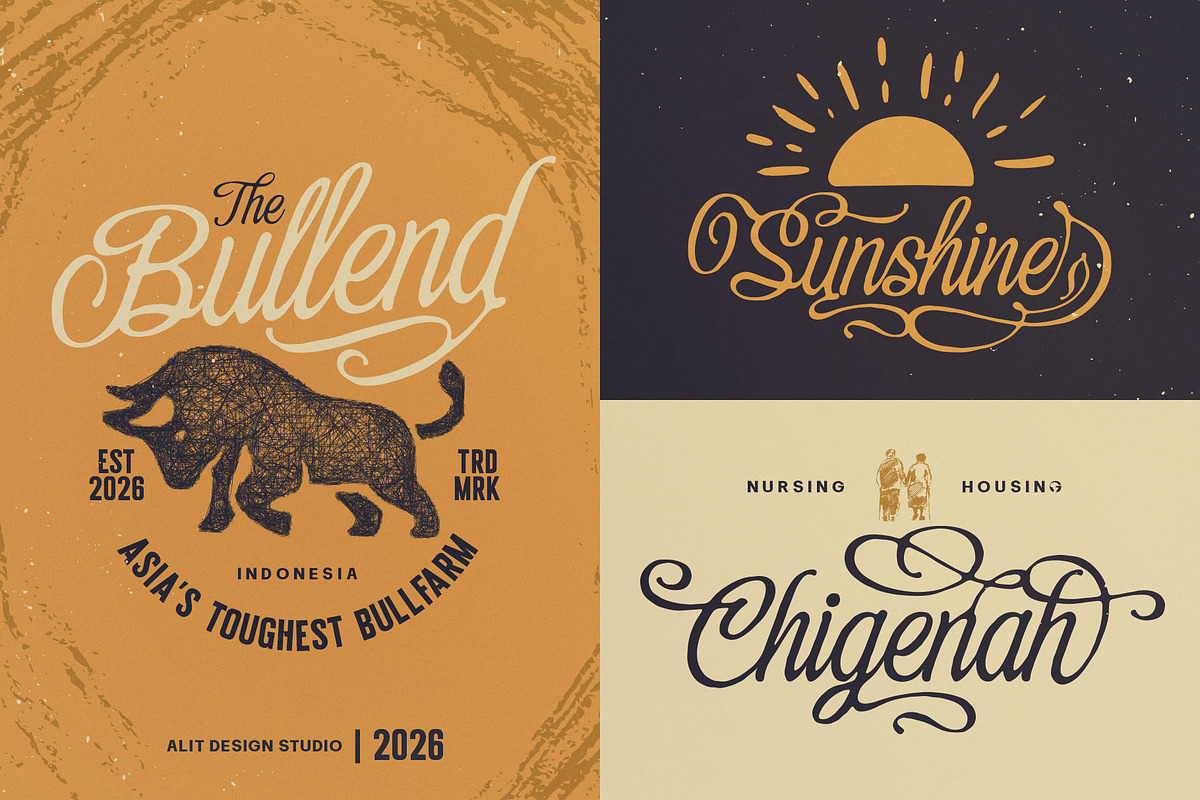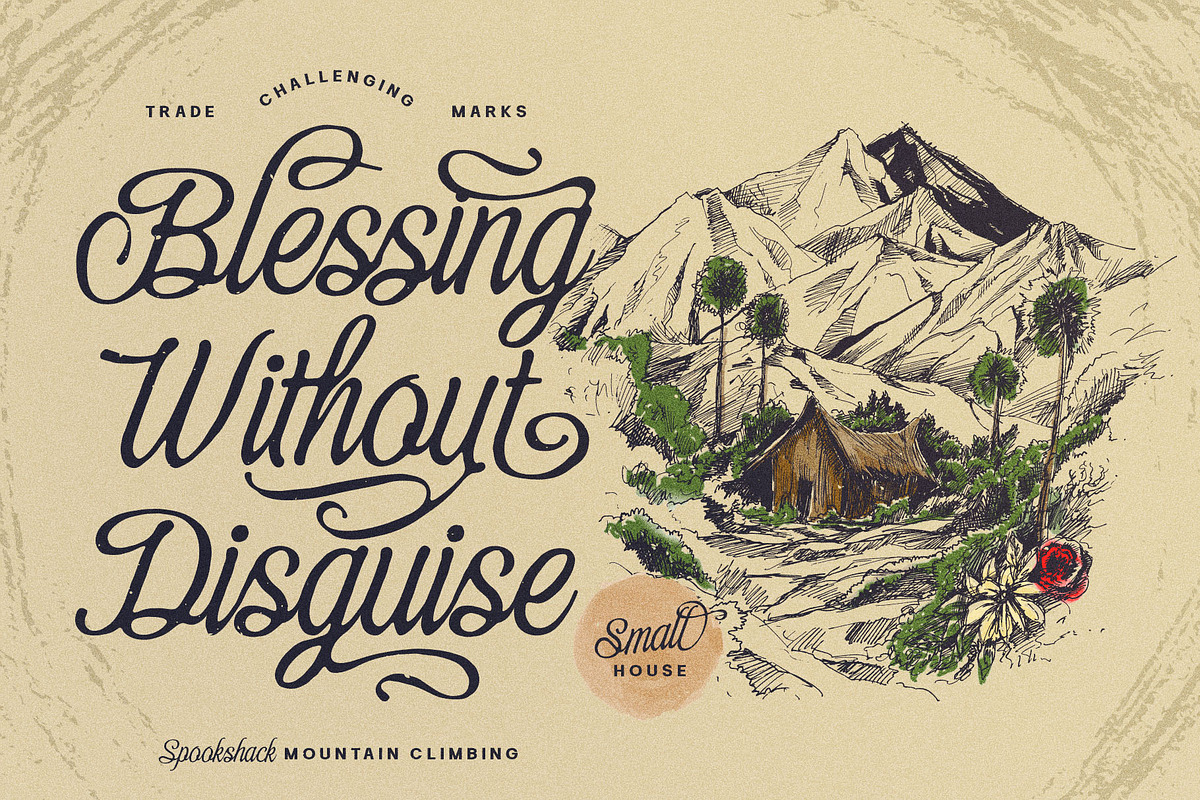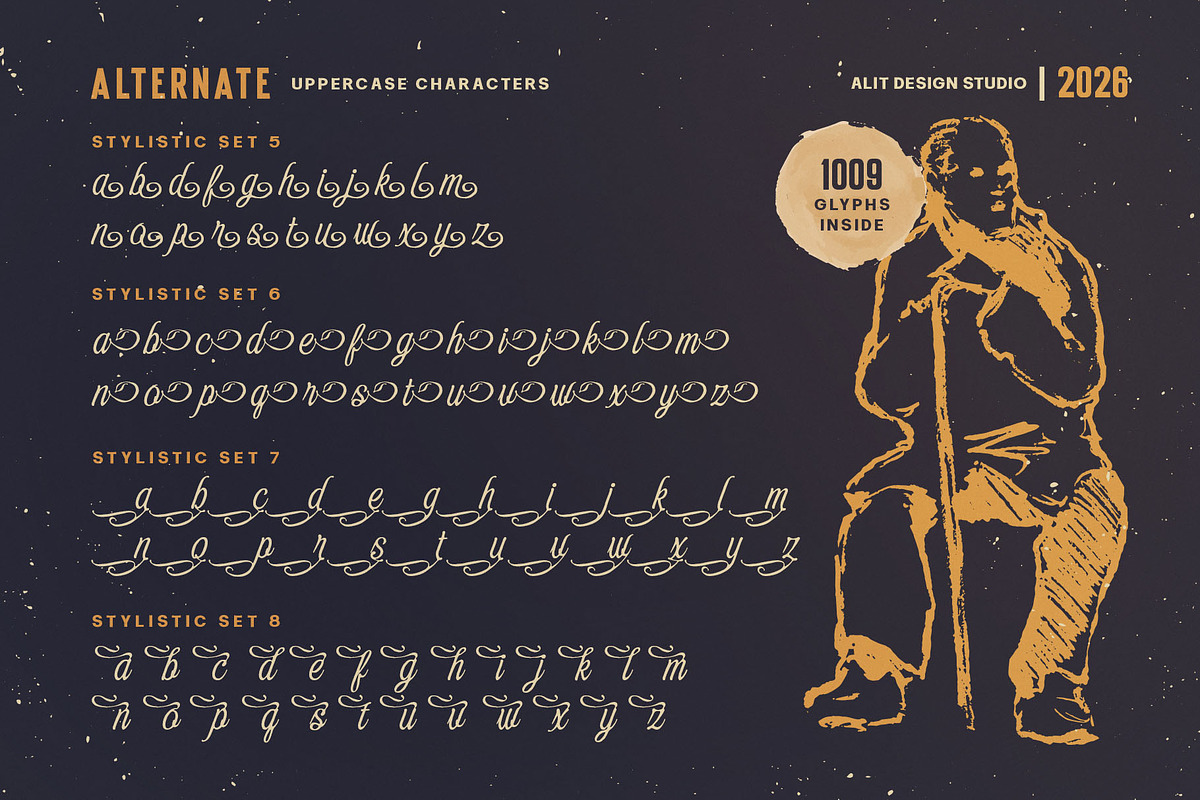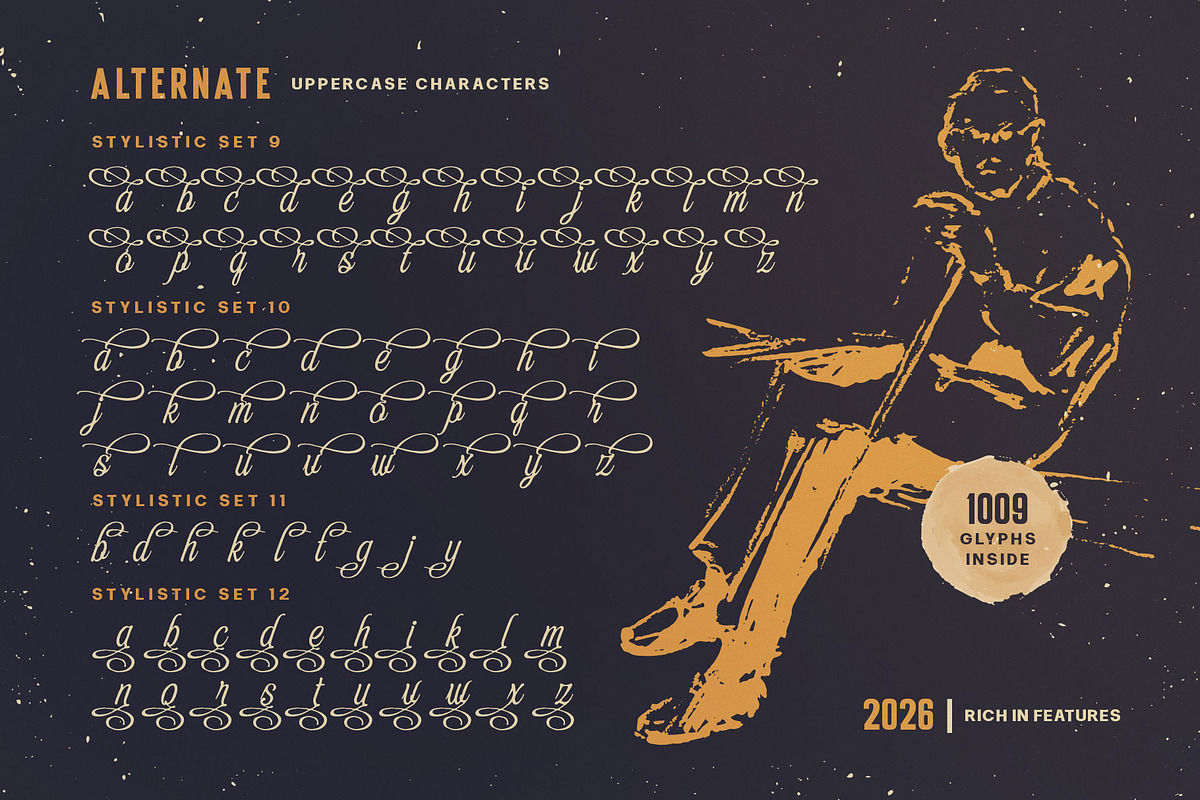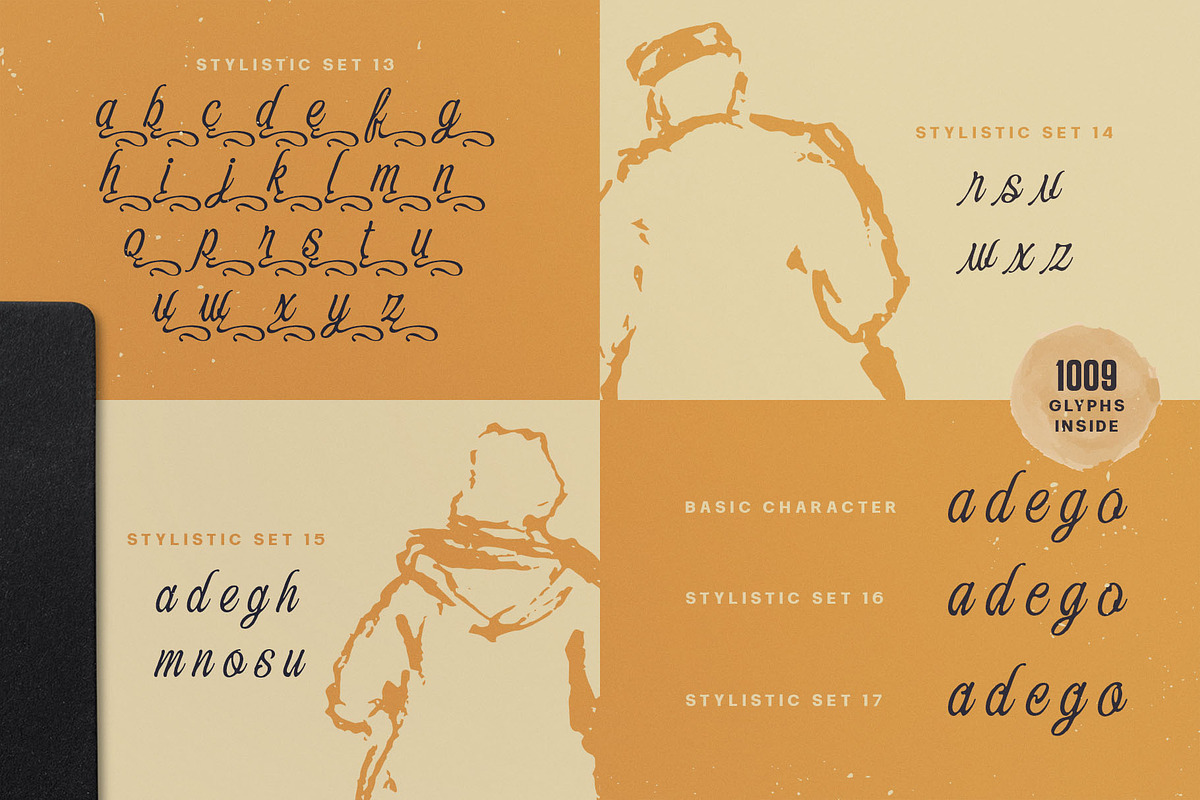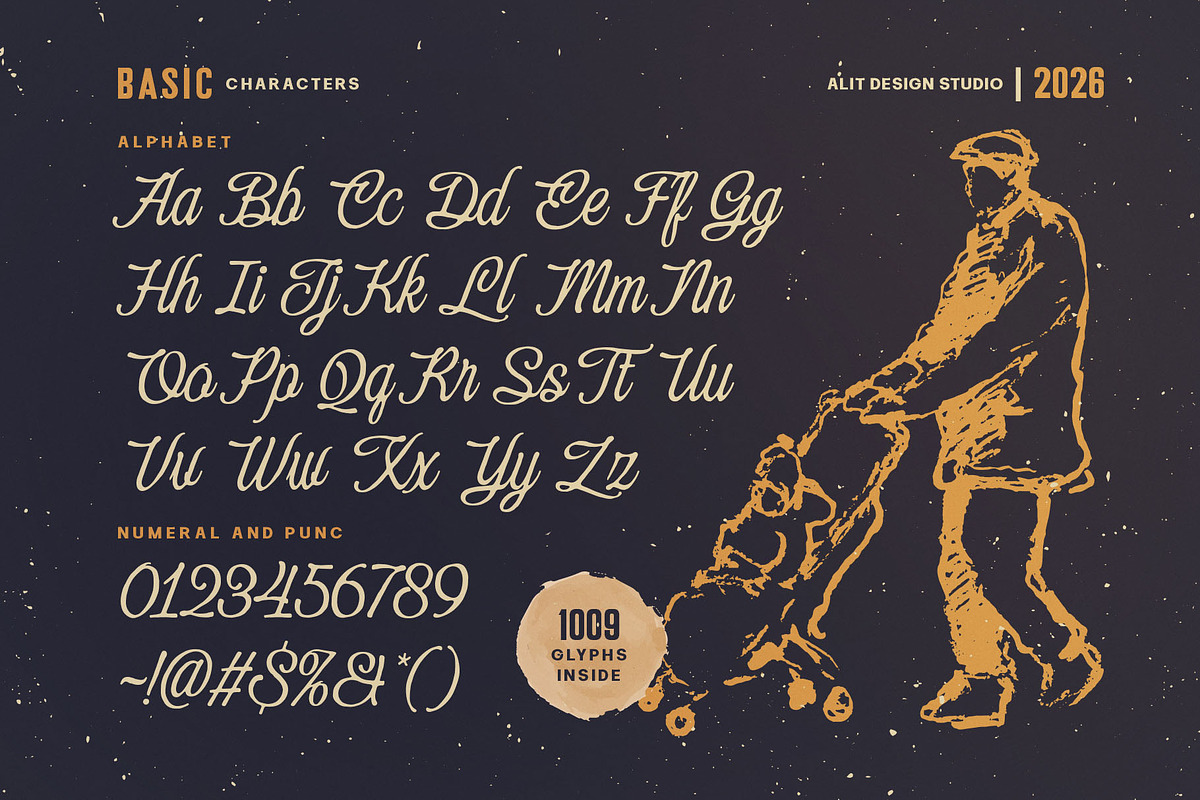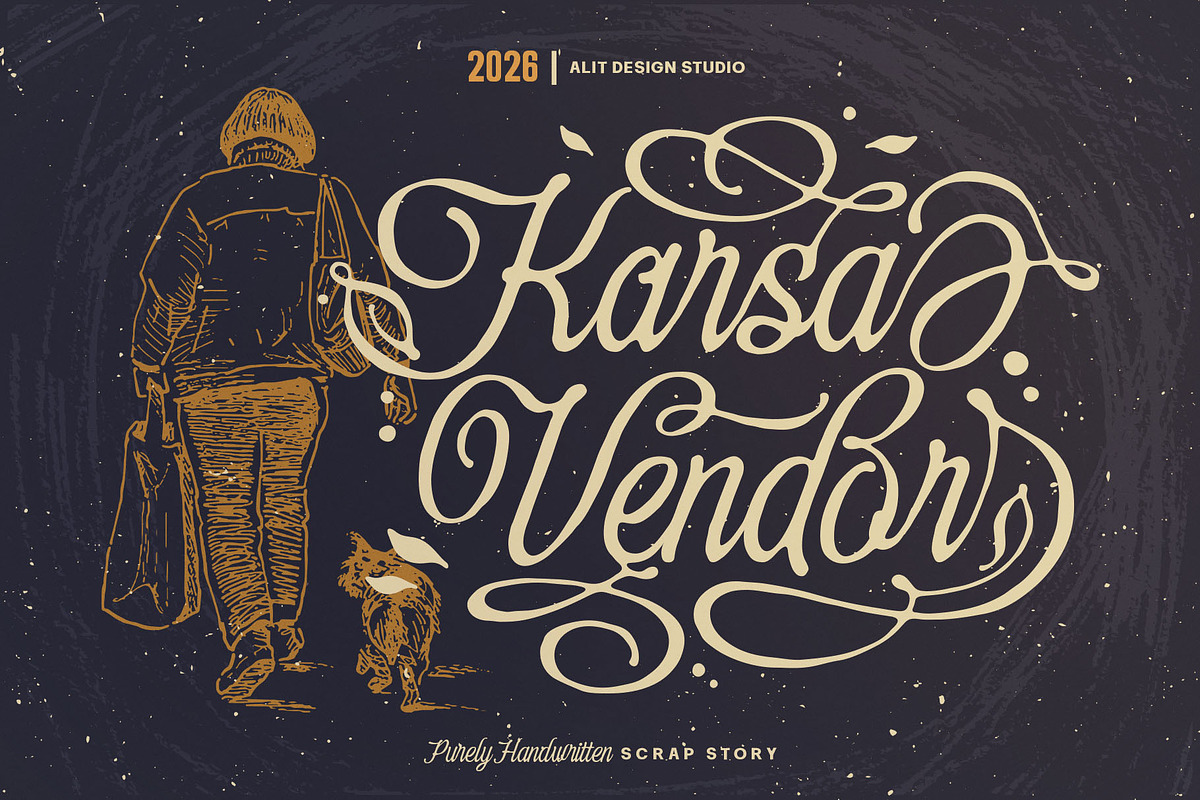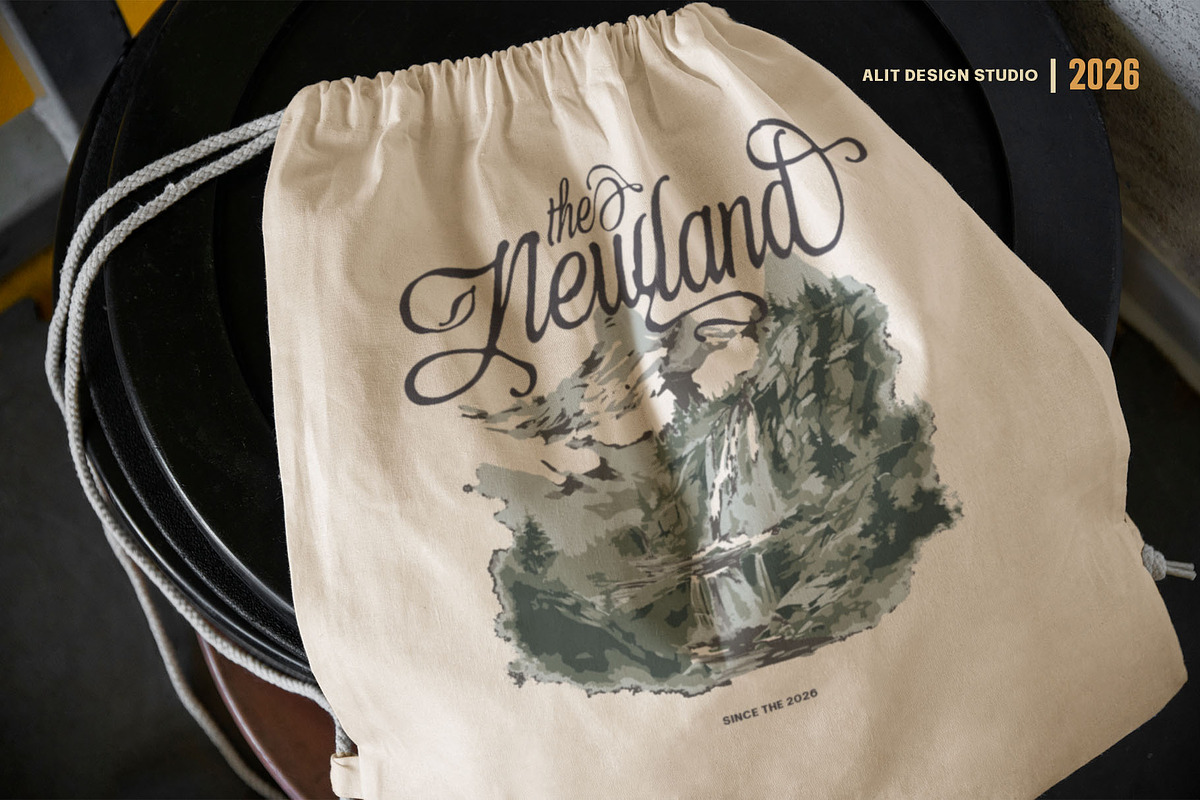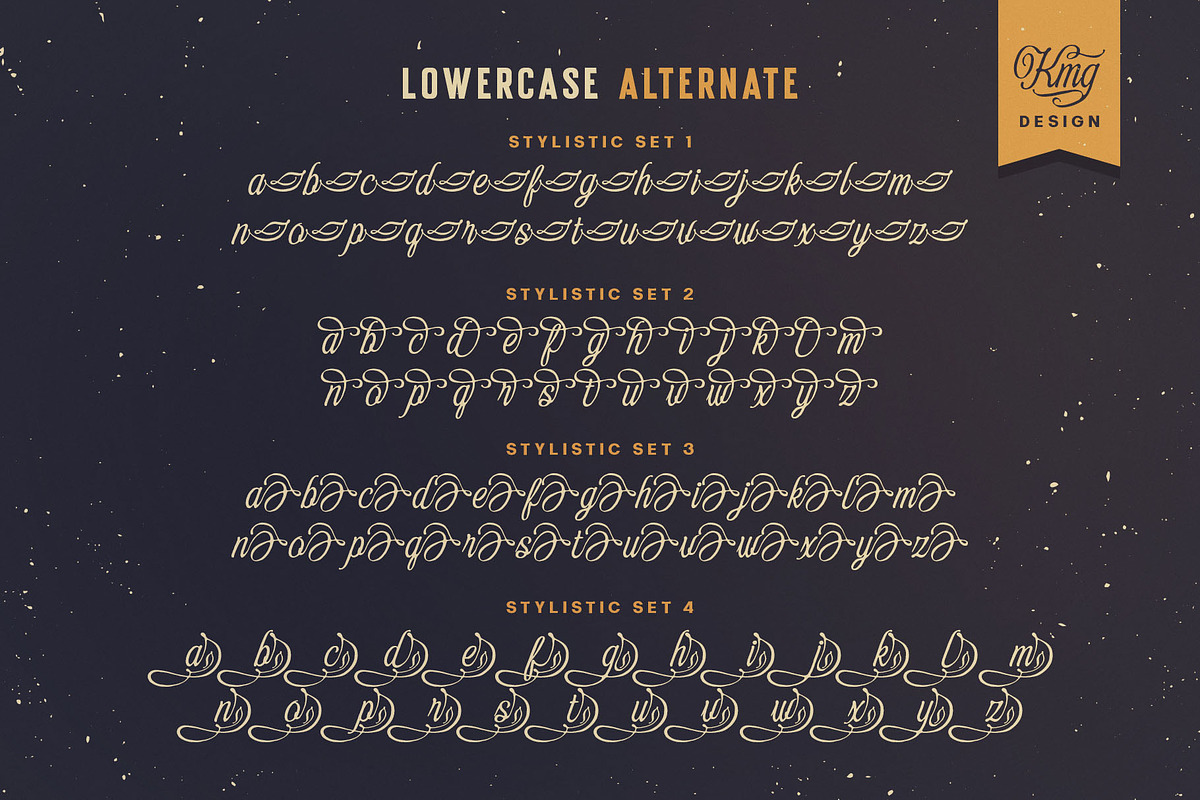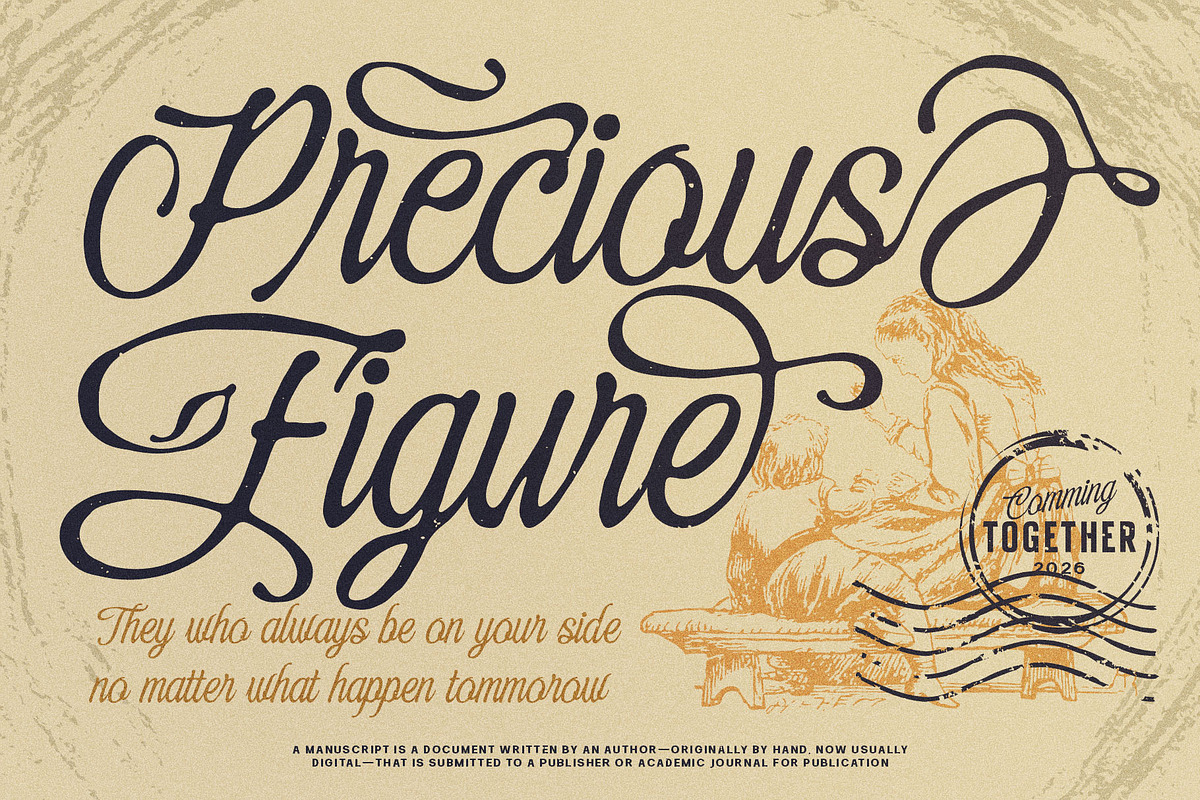
Eleven Hockey Typeface
Eleven Hockey – A Timeless Retro Handwritten Script
Elevate your design projects with Eleven Hockey, a masterfully crafted handwritten script that strikes the perfect balance between vintage nostalgia and modern elegance. Originally designed at Alit Design Studio, this typeface is inspired by classic retro lettering, offering a rich, organic feel that adds a personal touch to any creative work.
Eleven Hockey is not just a font; it is a comprehensive design toolkit. With an expansive library of 1009 glyphs, it provides unparalleled flexibility. Whether you are aiming for a sophisticated look with elegant swashes or a more rugged, adventurous vibe, the vast array of alternates and ligatures allows you to customize every word to perfection.
- Rich in Features: Includes a massive collection of alternates and unique ligatures to ensure your typography never looks repetitive.
- 17 Stylistic Sets: From subtle flourishes to dramatic, sweeping swashes, you have multiple options for both uppercase and lowercase characters.
- Authentic Texture: The font maintains a natural, hand-drawn flow that works beautifully for branding, logos, and editorial layouts.
- Multilingual Support: Ready for global reach with comprehensive character sets.
- Versatile Application: Perfect for branding, vintage posters, apparel design, wedding invitations, coffee shop menus, and high-end packaging.
Bring a sense of "Blessing Without Disguise" to your portfolio. Whether you're designing for a rugged outdoor brand or a high-end boutique, Eleven Hockey delivers the professional, soulful aesthetic your clients crave.